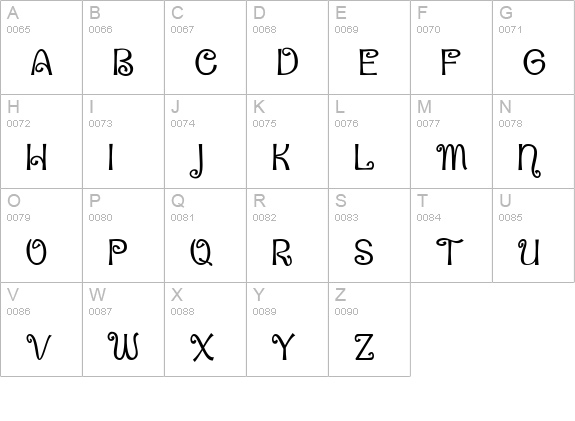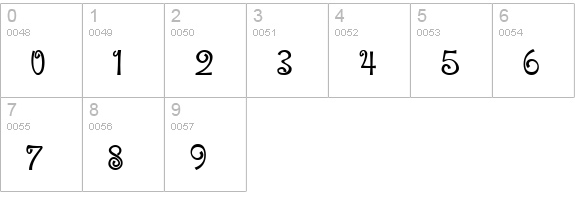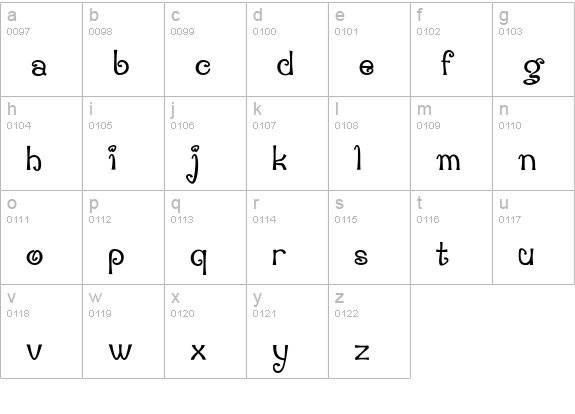
Penguin Attack Font Details
Introducing Penguin Attack font, a captivating typeface that is bound to leave a lasting impression. With its sleek and modern design, Penguin Attack is perfect for adding a touch of sophistication to any project. This font combines sharp angles with smooth curves, creating a unique and eye-catching visual appeal. But what sets Penguin Attack font apart is not just its stunning aesthetics, but also its accessibility. We are thrilled to announce that Penguin Attack font is available for free download at FontsMarket.com. Yes, you read that right – free! Now, you can unleash your creativity without worrying about breaking the bank. Whether you are designing a logo, creating a website, or crafting social media graphics, Penguin Attack font has got you covered. Its versatility allows it to seamlessly adapt to a wide range of design projects, making it a valuable asset for both professionals and enthusiasts alike. The clean and legible characters of Penguin Attack font ensure effortless readability, while its attention-grabbing details add a touch of flair. This font is carefully crafted to make a statement, making it ideal for headlines, titles, posters, and more. Don't miss out on the opportunity to elevate your designs with Penguin Attack font. Download it for free today at FontsMarket.com and unlock a world of creative possibilities. Let Penguin Attack font be your secret weapon in leaving a lasting impression on your audience.